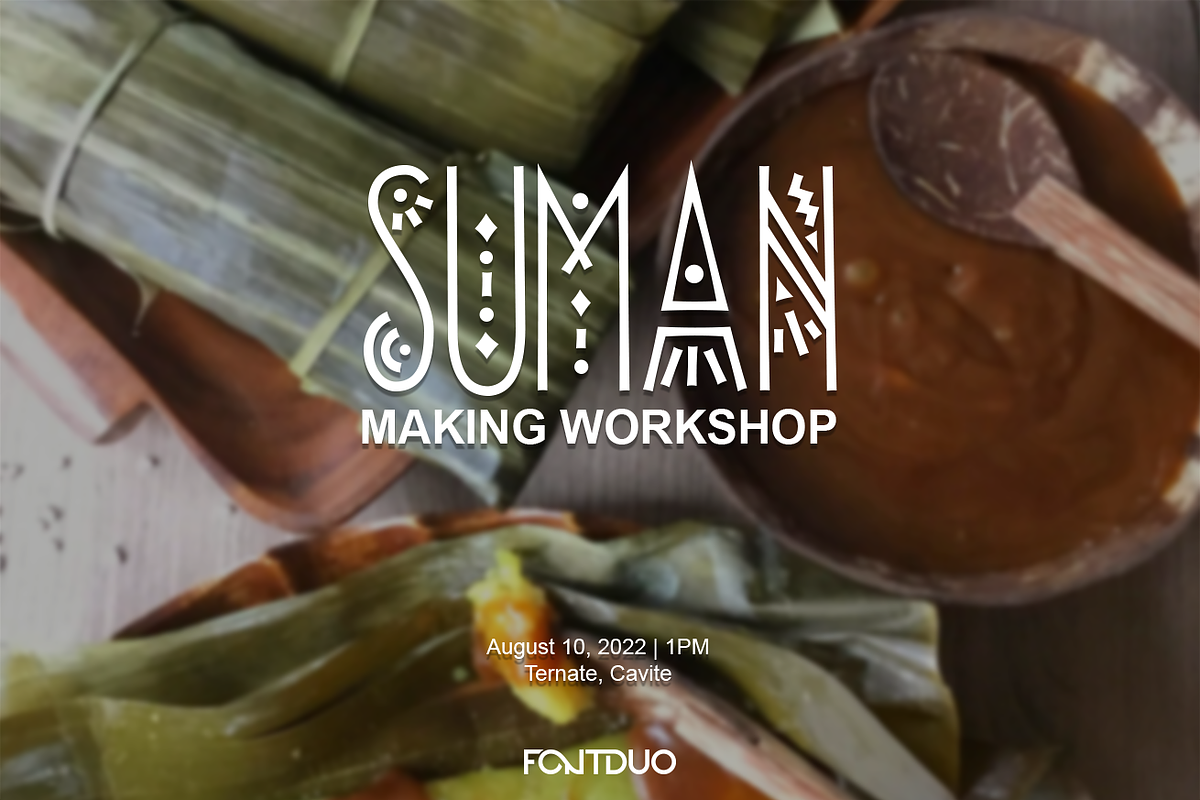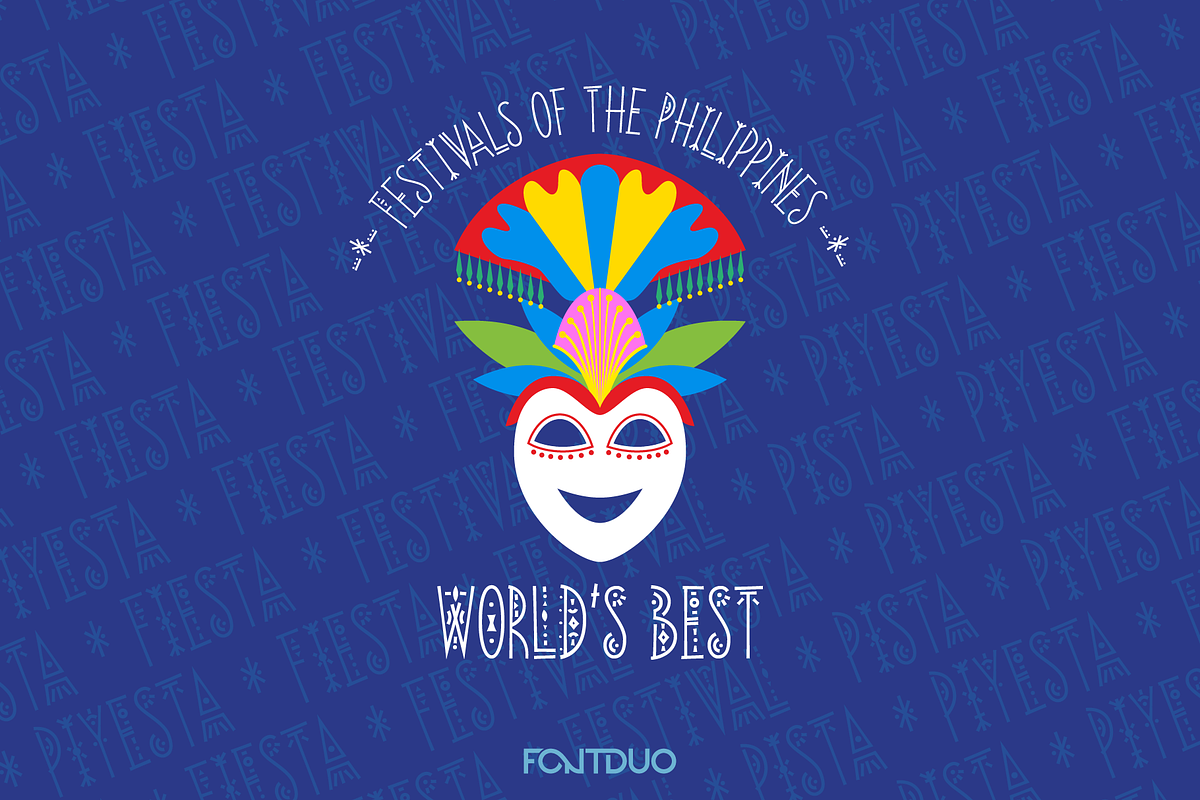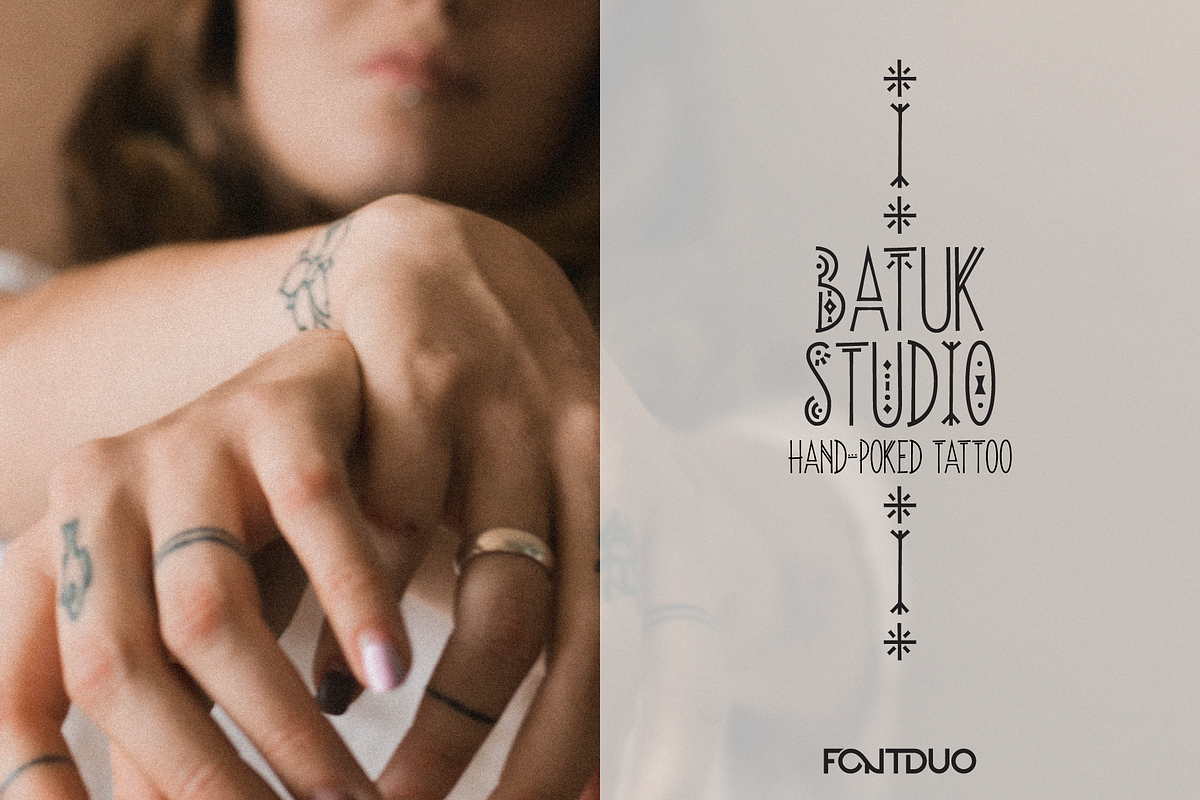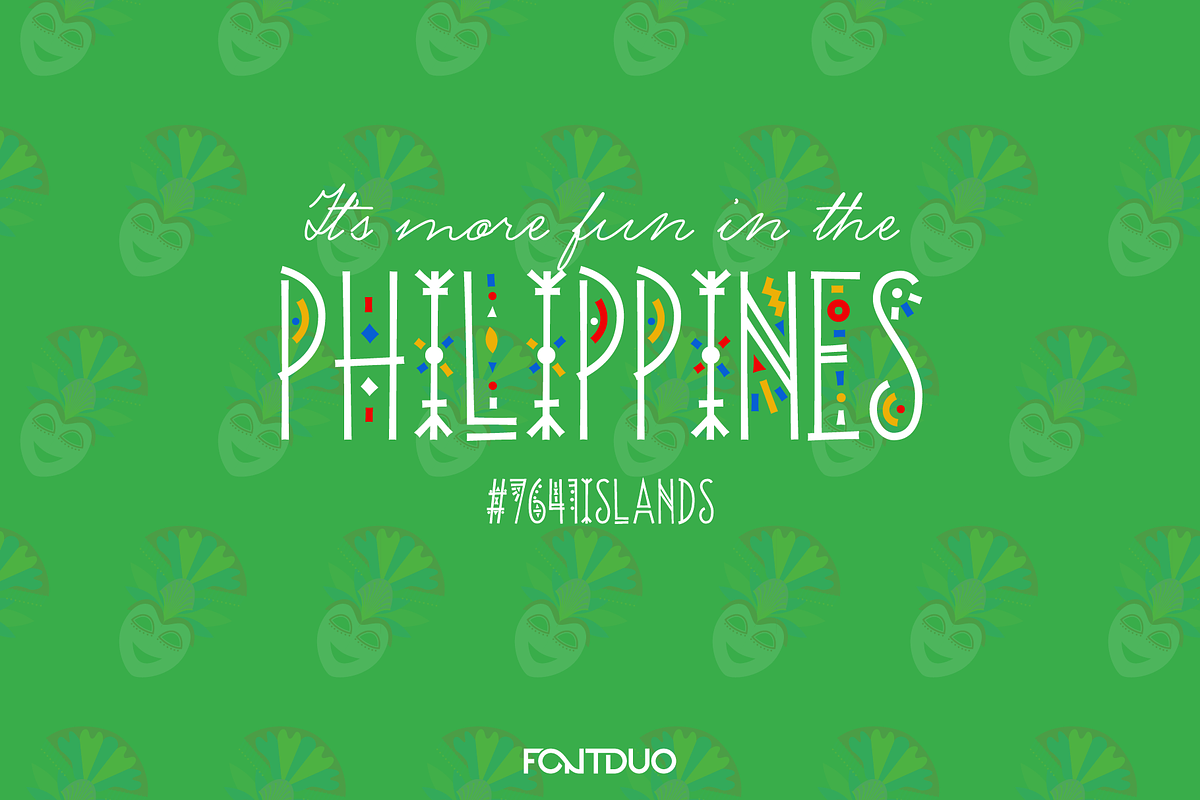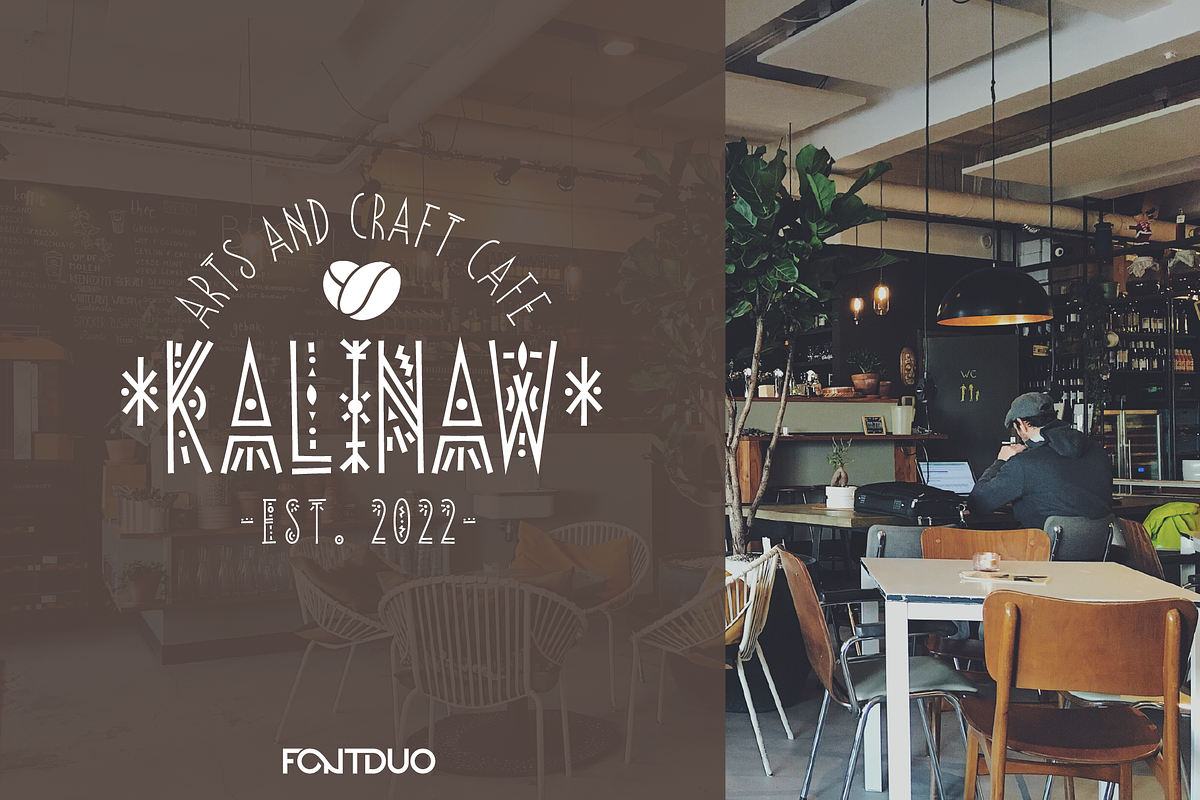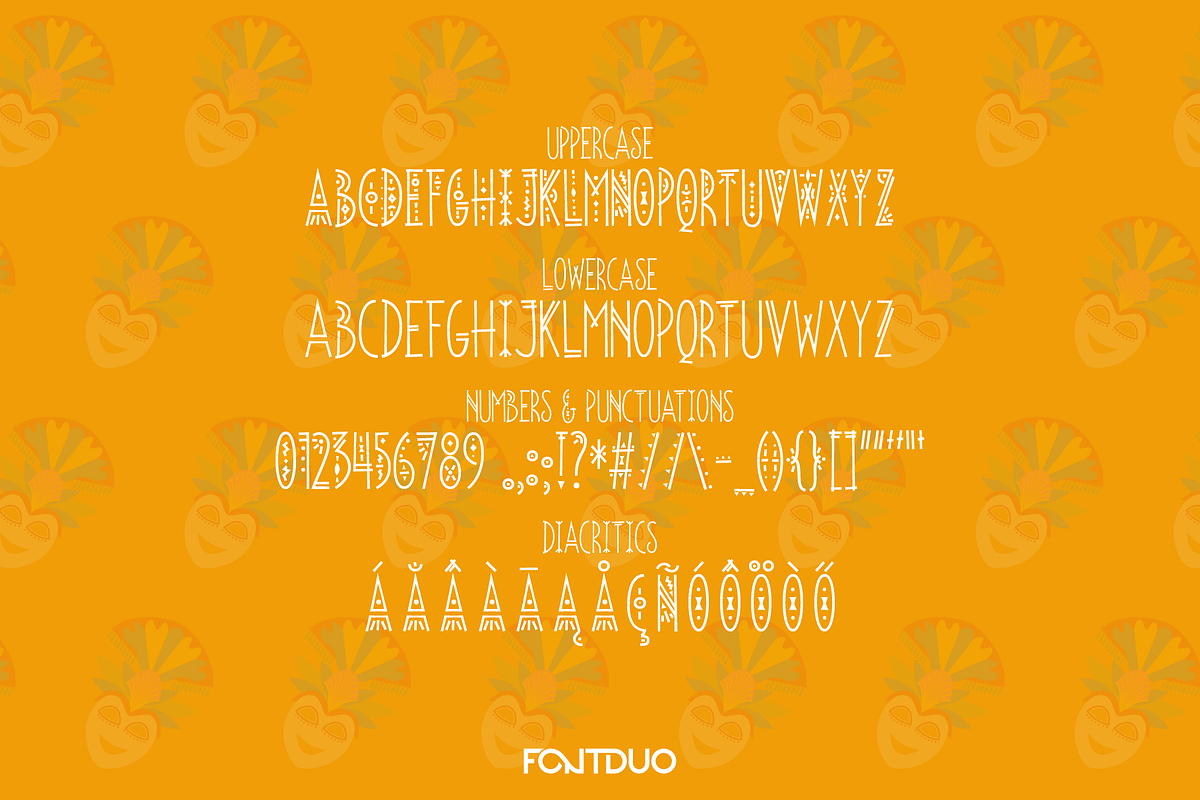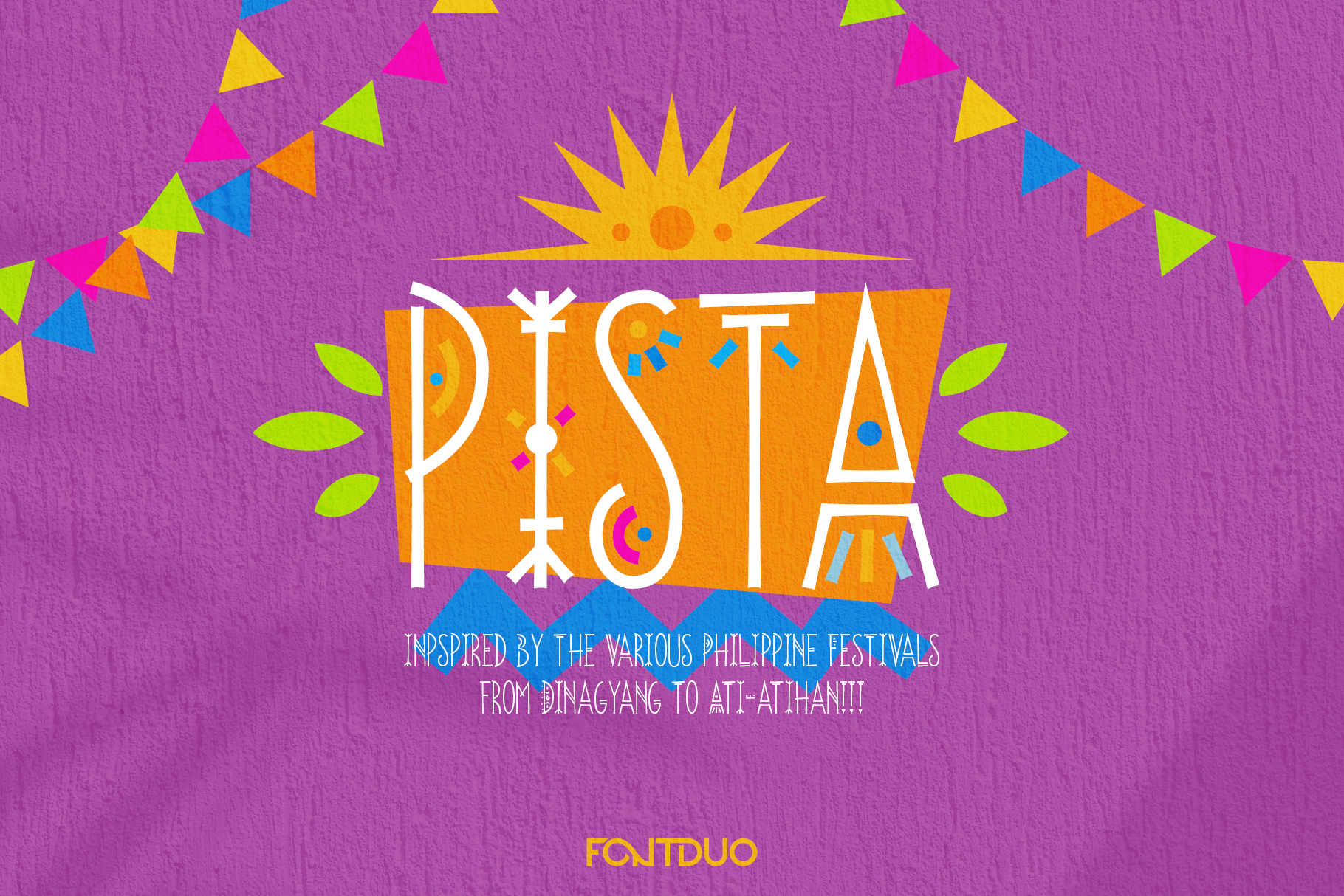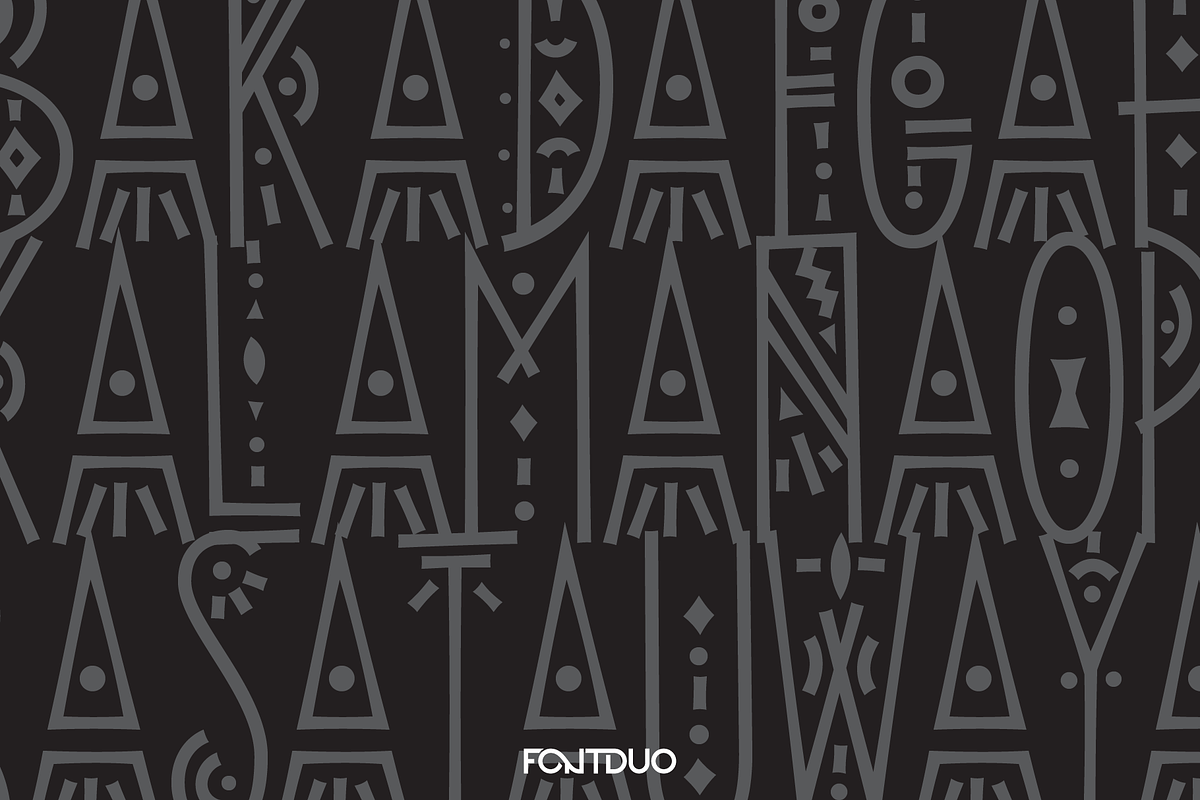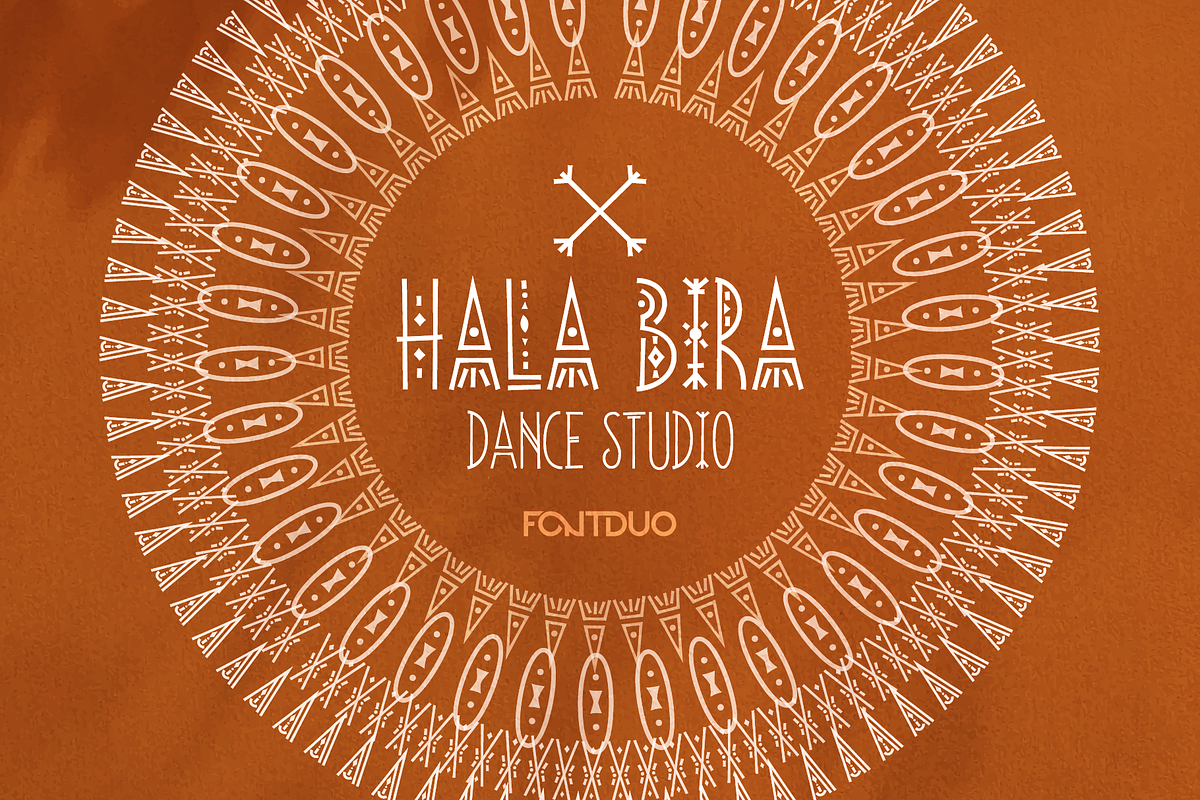
Pista Ethic Cricut Procreate Font
Pista is an ethnic-style typeface inspired by various Philippine festivals. Pista or piyesta (fiesta) means festival or holiday.
Pista is a display typeface that has 249 glyphs and supports multiple languages.